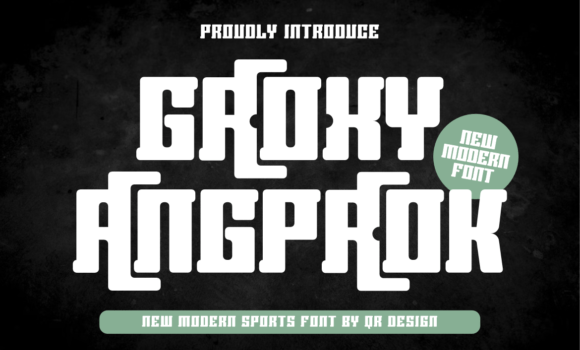
Groxy Angproak Font – Free Download Introduction to Groxy Angproak Font Groxy Angproak is a bold, cool, and modern display font perfect for your favorite projects. 📸 Preview Gallery 6 images 📌 Product Name Groxy Angproak Font 👤 Author qrdesignstd